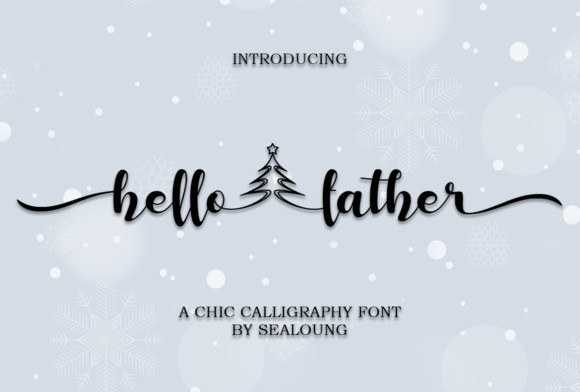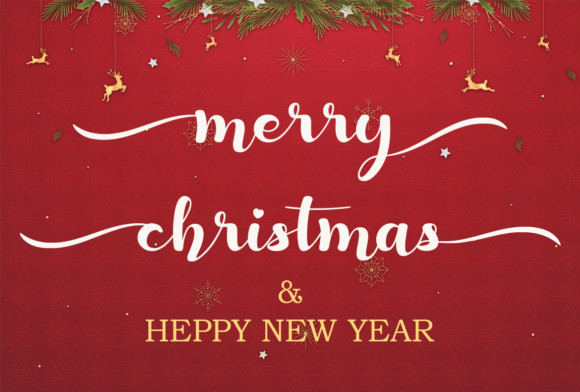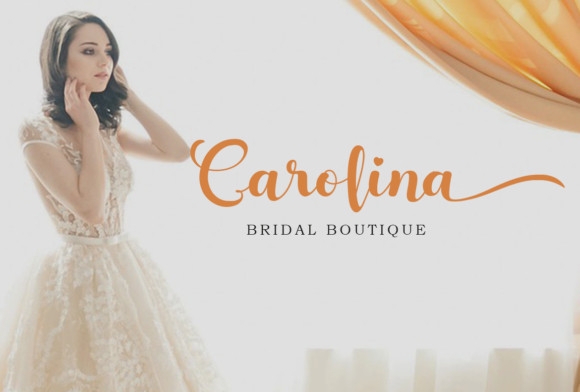
Hello Father Font
Hello Father feels equally magical and elegant. This stunning handwritten font is a stylish homage to classic calligraphy. It features a varying baseline, smooth lines, gorgeous glyphs and stunning alternates.